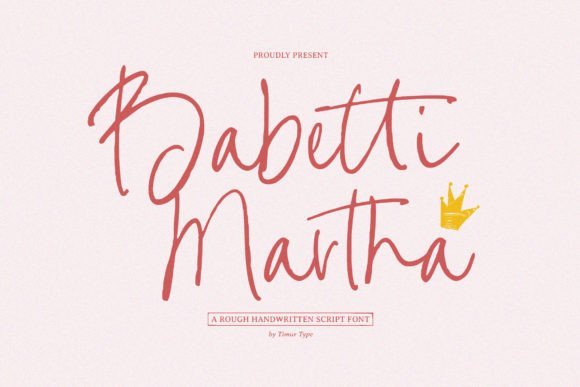
The Unbridled Charm of Handwritten Typography
There’s something special about scribbling down ideas in a notebook, the ink bleeding onto the page as your thoughts flow freely. It’s a moment of unbridled creativity, when the constraints of perfection are cast aside and the beauty of imperfection shines through. This is precisely the essence that the Babetti Martha Font captures – a distinctive handwritten script font that embodies the raw, artistic flair of spontaneous writing.
Designed to evoke the feeling of personal, handwritten notes, the Babetti Martha Font is perfect for designers seeking to infuse their projects with a touch of individuality and authenticity. Whether you’re crafting branding materials, designing invitations, or working on creative projects, this font’s expressive, uneven strokes and dynamic line variations will bring a unique charm to your work.
Babetti Martha Font Key Features
- Unique Characteristics: A modern script font with elegant, flowing connections and distinctive flair, ideal for creative and artistic applications.
- Font Styles: Includes regular, italic, bold, and bold italic styles for maximum flexibility and creativity.
Babetti Martha Font Review
I recently had the chance to work with the Babetti Martha Font, and I must say, it’s an interesting choice. There are some aspects that shine, but it’s not without its limitations.
- Unique aesthetic: The font has a distinct, vintage vibe that can add character to your designs.
- High x-height: This makes the font easier to read, especially in smaller sizes.
- Good legibility: While not perfect, the font is clear and easy to understand, even at close distances.
- Conditional spacing: The font’s spacing can be inconsistent, which may require manual adjustments in some cases.
- Limited language support: Babetti Martha Font may not be suitable for multilingual projects, as it lacks support for certain languages.
- Not ideal for large blocks of text: Due to its condensed nature, the font can become overwhelming when used extensively.
The Babetti Martha Font is a great choice for projects where you want to add a touch of personality and nostalgia. However, it’s essential to be aware of its limitations, especially when it comes to language support and large blocks of text. With careful use and attention to detail, this font can be a valuable addition to your design toolkit.
Getting the Most Out of Babetti Martha Font
To get the most out of Babetti Martha Font, try the following:
– Use it for titles and headings to add a touch of elegance.
– Pair it with other fonts to create a unique and eye-catching design.
– Experiment with different font sizes and colors to create visual interest.
Babetti Martha Font is ideal for:
– Wedding invitations and stationery.
– Luxury branding and marketing materials.
– High-end product packaging and labels.
Alternatives to Babetti Martha Font
Great Vibes is a beautiful, handwritten font perfect for adding a touch of elegance and sophistication to your designs. It’s ideal for use in titles, headings, and quotes where you want to convey a sense of warmth and personality. Compared to Babetti Martha Font, Great Vibes has a more refined and cursive feel, making it suitable for a wider range of applications.
Carolyna Pro is a modern, elegant font that’s perfect for designers who want to create a sophisticated and refined look. It’s ideal for use in titles, headings, and body text where you want to convey a sense of luxury and sophistication. Compared to Babetti Martha Font, Carolyna Pro has a more streamlined and modern feel, making it suitable for high-end branding and design projects.
Alex Brush is a beautiful, handwritten font that’s perfect for adding a touch of whimsy and personality to your designs. It’s ideal for use in titles, headings, and quotes where you want to convey a sense of playfulness and creativity. Compared to Babetti Martha Font, Alex Brush has a more relaxed and casual feel, making it suitable for a wider range of applications, from blog posts to social media graphics.